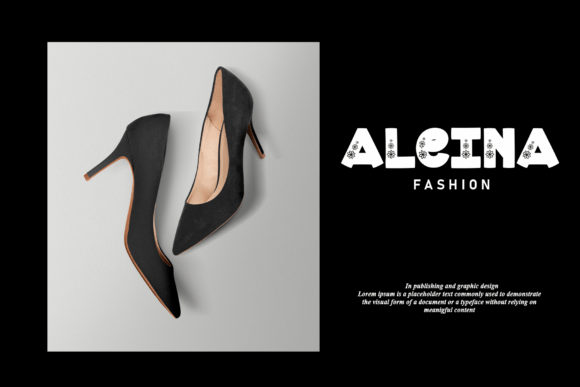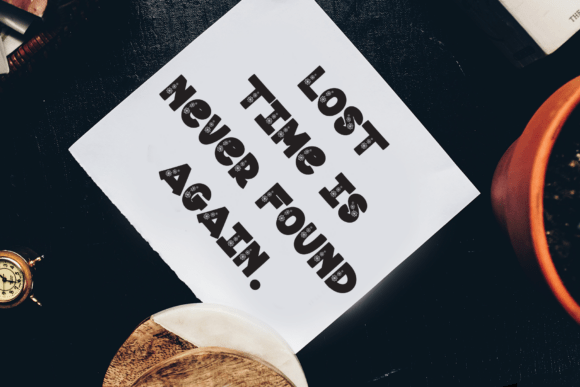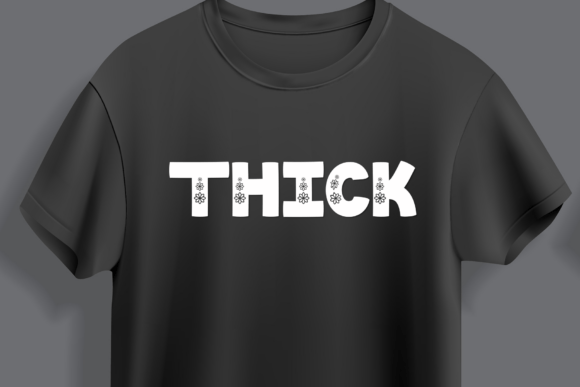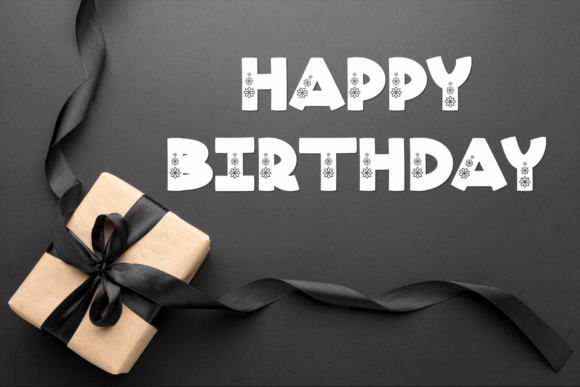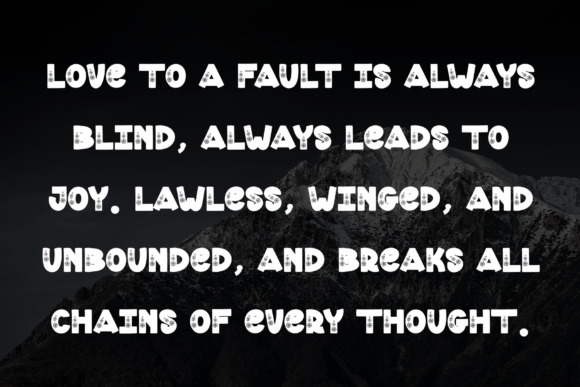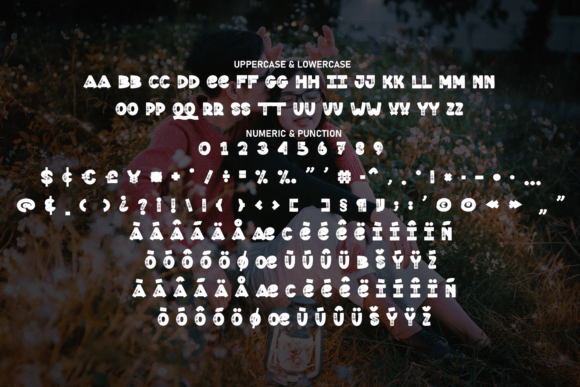
Unlock the Magic of Charming Delight Font
Do you remember that moment when you stumbled upon the perfect font, and everything just clicked? The words flowed effortlessly, and your design came alive with a touch of personality. For designers, finding the right font can be a game-changer. That’s where Charming Delight Font comes in – a special creative product designed to give you an extraordinary experience.
This beautifully crafted font is perfect for various projects, from wall displays and wedding invitations to social media post logos and product packaging. With its latest style letters, you’ll be able to add a touch of elegance and sophistication to your designs. The value of Charming Delight Font lies in its versatility and ease of use, making it a must-have for any designer looking to elevate their work.
Charming Delight Font Key Features
- Unique Characteristics: The Charming Delight Font features a unique, whimsical design with intricate details, making it perfect for creative projects.
Charming Delight Font Review
I recently had the chance to work with the Charming Delight Font, and I must say, it’s a delightful addition to any design project. Here’s my honest review:
- Unique charm**: The font has a distinct, whimsical feel that adds a touch of personality to any text.
- Legibility**: Despite its decorative nature, the font remains easy to read, making it suitable for body text as well as headings.
- Pairing versatility**: Charming Delight Font pairs well with a variety of other fonts, allowing for creative and interesting typography combinations.
- Not ideal for large blocks of text**: Due to its decorative nature, the font can become overwhelming when used extensively.
- Limited availability in some font sizes**: I encountered some issues with font size availability, which may require some workarounds.
Overall impression
Overall, I’m impressed with the Charming Delight Font’s unique charm and versatility. While it has some limitations, it’s a great choice for adding a touch of whimsy to your designs. Just be mindful of its usage and pairing to get the best results.
Tips: Use Charming Delight Font for headings and titles to add a touch of elegance to your designs.
Tips: Use Charming Delight Font for layer titles and text overlays to add visual interest to your designs.
Tips: Use Charming Delight Font for headings and titles to add a touch of sophistication to your presentations and documents.
Charming Delight Font is perfect for:
1. Wedding invitations and stationery.
2. Branding and marketing materials.
3. Artistic and creative projects.
4. Any design project where a touch of elegance is desired.
Alternative Fonts for Charming Delight Font
The Great Vibes Font is a modern, elegant script font that is perfect for creating a sense of sophistication and luxury. It is ideal for use in wedding invitations, magazine headlines, and branding materials. Compared to Charming Delight Font, Great Vibes Font has a more refined and polished look, making it suitable for high-end designs.
Carolyna Pro Font is a stylish, handwritten font that is great for adding a touch of whimsy and personality to designs. It is perfect for use in blog posts, social media graphics, and advertising materials. Compared to Charming Delight Font, Carolyna Pro Font has a more playful and informal tone, making it suitable for casual and creative designs.
Q: Is Charming Delight Font optimized for digital use?
A: Yes, Charming Delight Font is carefully crafted for optimal performance in digital environments, including web, mobile, and social media. It’s designed to display clearly on various screen resolutions and devices, ensuring a consistent and charming visual experience.